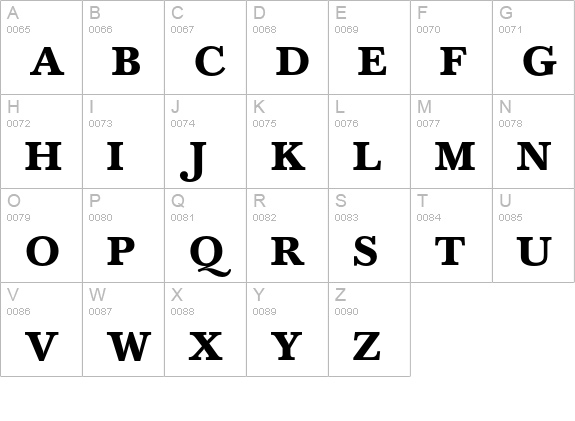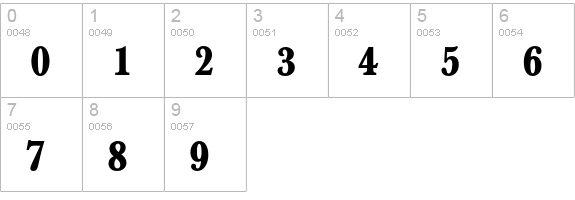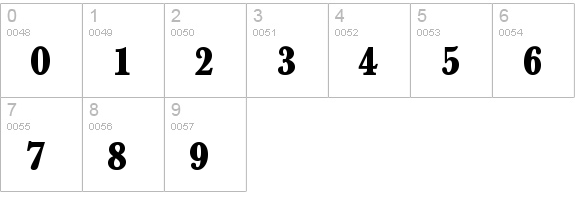
Berthold Baskerville Bold Font Details
Berthold Baskerville Bold is a strong, high-contrast variant in the Berthold typeface family \xE2\x80\x94 well suited to headlines, attention-grabbing titles, and strong calls-to-action.
Berthold Baskerville Bold is a timeless and elegant font that exudes sophistication and professionalism. Its strong and bold design makes it perfect for headlines, titles, and other prominent text elements. The sharp serifs and clean lines of this font give it a classic and refined appearance that commands attention. Whether used in print or digital media, Berthold Baskerville Bold adds a touch of sophistication to any design project. Its versatility allows it to be used in a variety of contexts, from traditional to modern, making it a valuable asset for designers and creatives alike. The best part? Berthold Baskerville Bold is available for free download at FontsMarket.com. This means you can easily access this high-quality font without any cost, making it a valuable addition to your font library. Don't miss out on the opportunity to enhance your designs with the timeless elegance of Berthold Baskerville Bold. Download it now and elevate your projects to the next level.